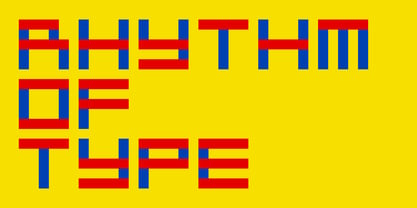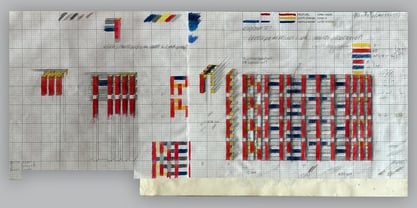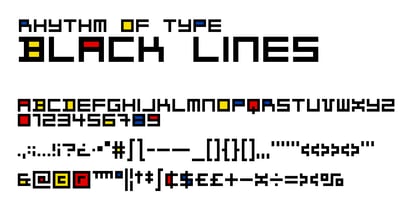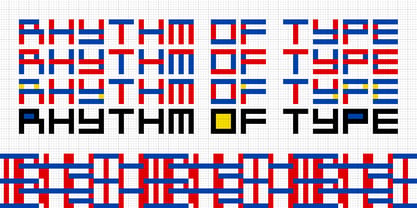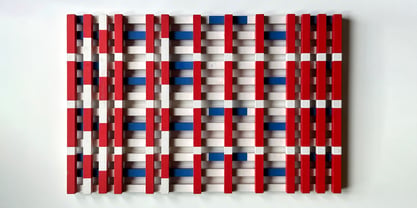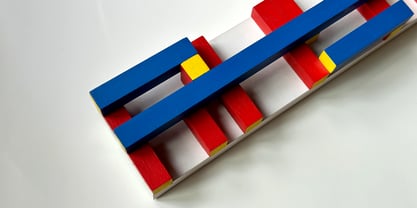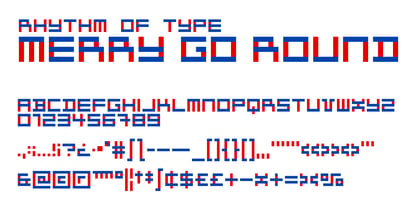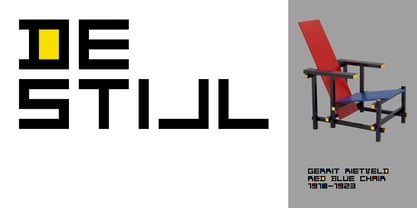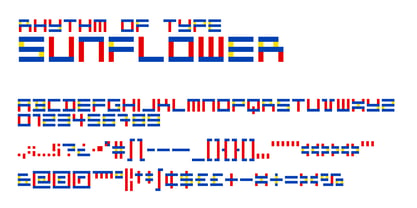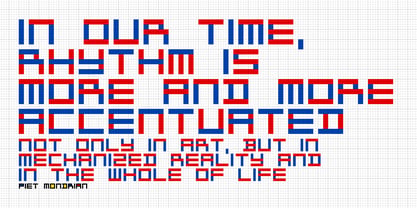
Rhythm of Type
by Dodeca Studio
Rhythm of Type is a typeface designed by Geoff Kiss (1936 - 2005), inspired by the work of Dutch painter, Piet Mondrian. The typeface shares typographic form with Architype Van Doesburg, from the 1919 experimental geometric alphabet by Theo Van Doesburg. It also takes inspiration from the work of Timothy Epps and Christopher Evans on typefaces for machine learning at the National Physical Laboratory, Middlesex, UK. Geoff’s version of the typeface differs through his unique development of the type into physical form with firm layout principles alongside use of colour. Geoff first started developing ideas of three-dimensional type in the 1970s and expanded this work over several decades. In the late 1980s he focused on a Mondrian-inspired colour scheme, and in 1995 made his first physical piece as part of a series called Rhythm. Constructed with wooden blocks and painted in primary colours, the starkly defined type is combined with a strict construction methodology. A limit of two layers of blocks dictates the vertical and horizontal lines of type, with no exceptions for angles and strictly no curves. The result is a typeface that embodies the word it depicts, flowing like bars of music. Geoff continued his work through a series of unique pieces with Rhythm x4, Rhythm x9 and In Our Time. Through these different pieces, Geoff explores adding further layers of blocks, block sizes and variations of the colours. In 2024, Geoff’s son Tom began work on a digital version of this typeface. Tom studied Geoff’s original notebooks and sketches to create each typeface. It comes in four variations:. Festival, Sunflower, Merry-Go-Round and Black Lines. Festival, Sunflower and Merry-Go-Round are named after the red, yellow and blue colour references used in the pieces, with Black Lines named after Rhythm of Black Lines by Mondrian. Colour is a critical aspect of this typeface and crucial to the variants. Merry-Go-Round places blue horizontal blocks on top of a red base, as used in Geoff’s Rhythm, Rhythm x9 and In Our Time pieces. Festival is the inverse, as seen in Rhythm x4. Although yellow featured in all of Geoff’s Rhythm pieces, it was most frequently used on the ends of the wooden blocks and not visible with a two-dimensional version of the type. The Sunflower variant places yellow at the narrow intersections of horizontal blocks, visible in the Rhythm and Rhythm x9 pieces. The strict limitations of the wooden block construction always dictate the type design, with the exception of some symbols and punctuation which would otherwise prove impossible. The typeface makes use of some stylistic alternates, as noted from Geoff’s original sketches of the typeface alphabet.